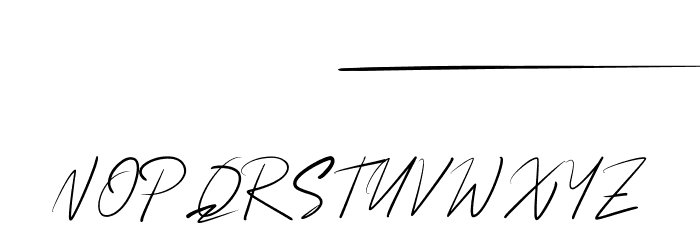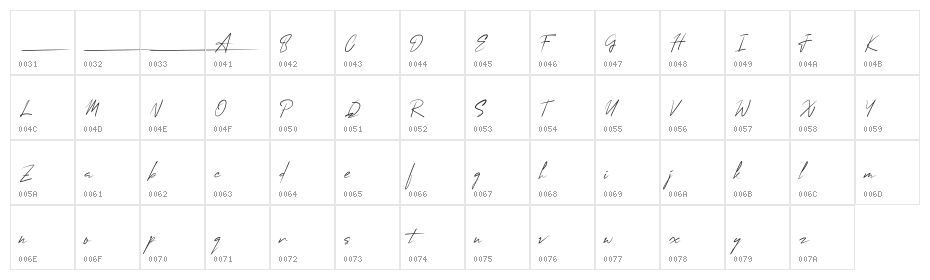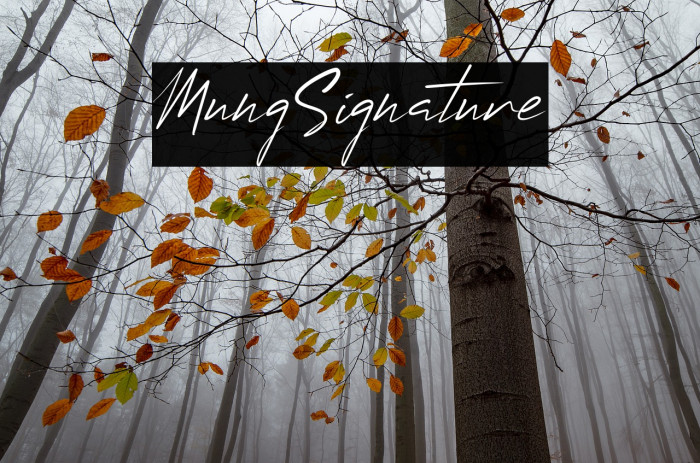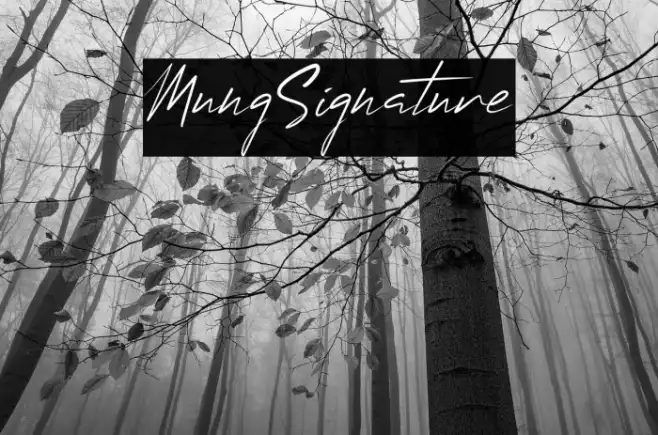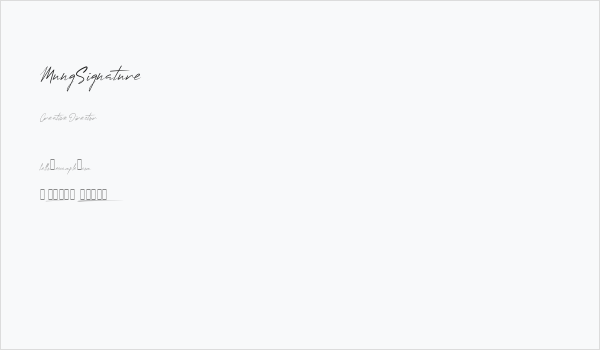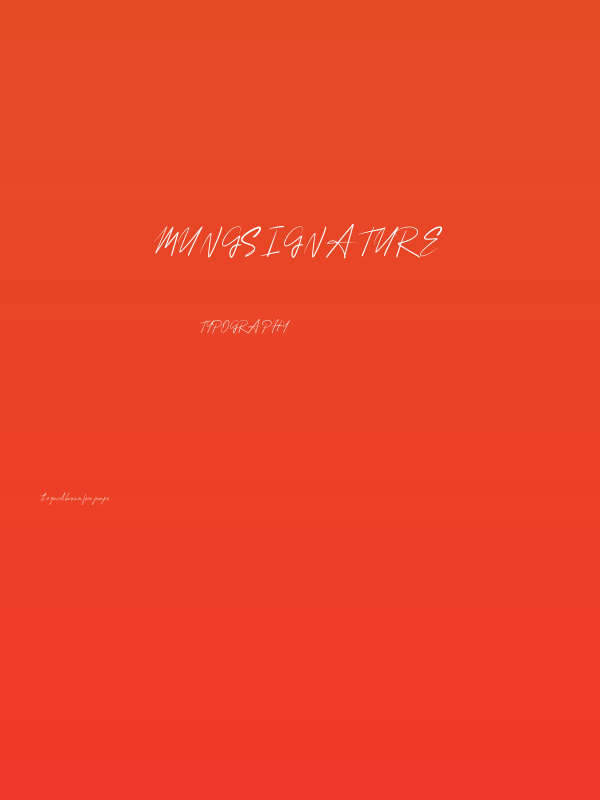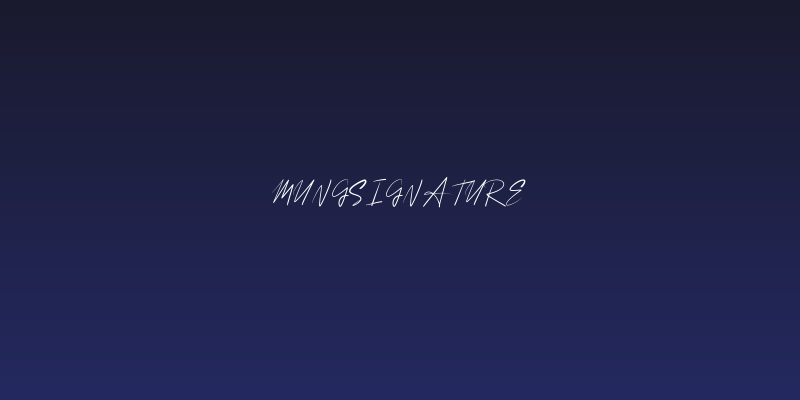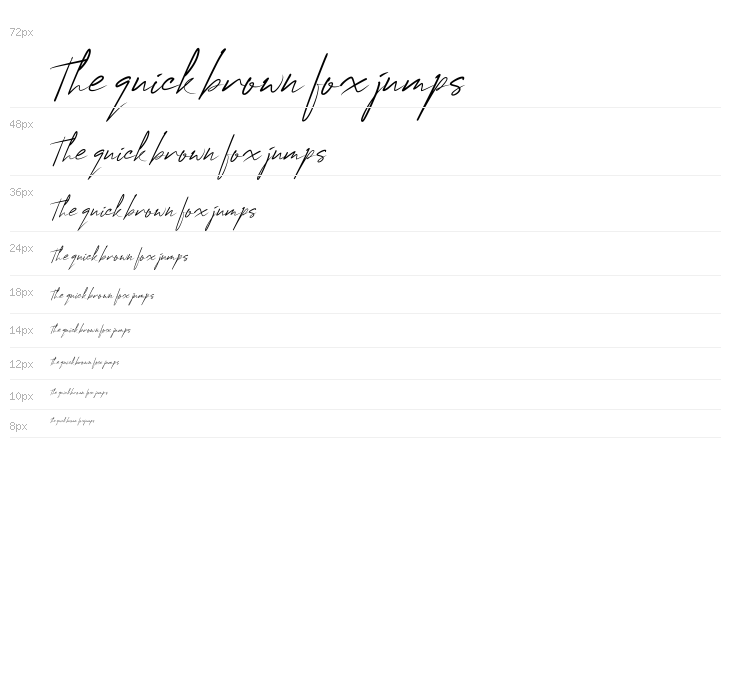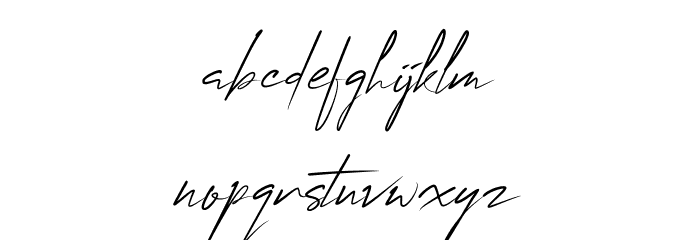
MungSignature Font
MungSignature Description
This font exudes a dynamic and expressive style, characterized by its fluid, handwritten appearance. The letters are crafted with a sense of motion, featuring varying stroke widths that add a lively and personal touch. The uppercase letters are bold and slightly slanted, while the lowercase letters maintain a consistent flow, enhancing the script-like quality. The overall design is elegant yet informal, making it suitable for creative and artistic projects. The spacing between characters is relatively tight, which contributes to the cohesive look of the text. This font is ideal for adding a personal or artistic flair to any design.
| Proposed Projects | Ideal for personal branding, artistic invitations, creative logos, and expressive headlines. |